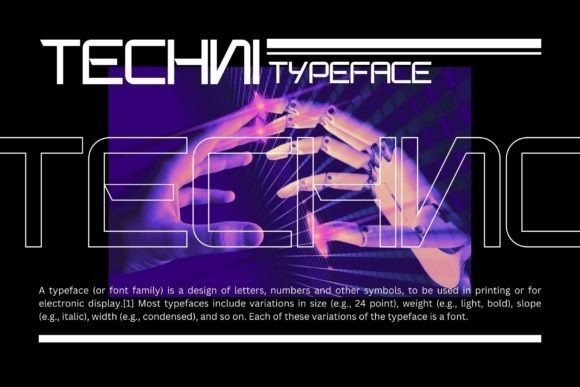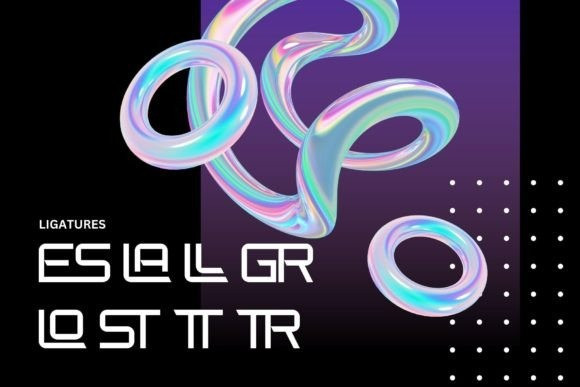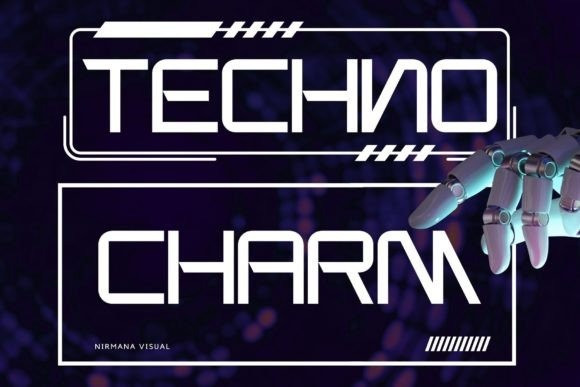
Techno Charm Font
Techno Charm Font, designed to add a futuristic and sleek aesthetic to your designs. With its sharp lines, geometric forms, and high-tech vibe, this font is perfect for projects that require a modern and forward-looking visual identity.
Inspired by the sleek designs of technology and the digital age, this font captures the essence of innovation and progress. Its clean and precise letterforms, along with its distinct futuristic style, make it an excellent choice for technology-based branding, gaming graphics, sci-fi posters, and digital interfaces.